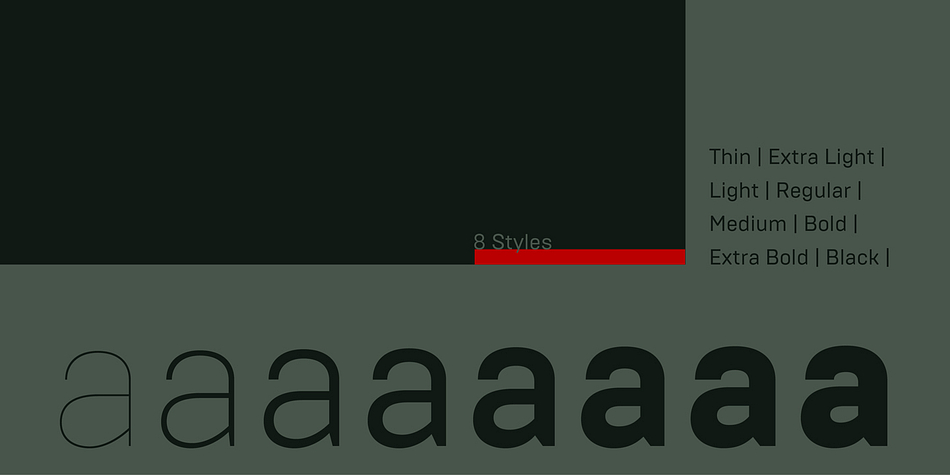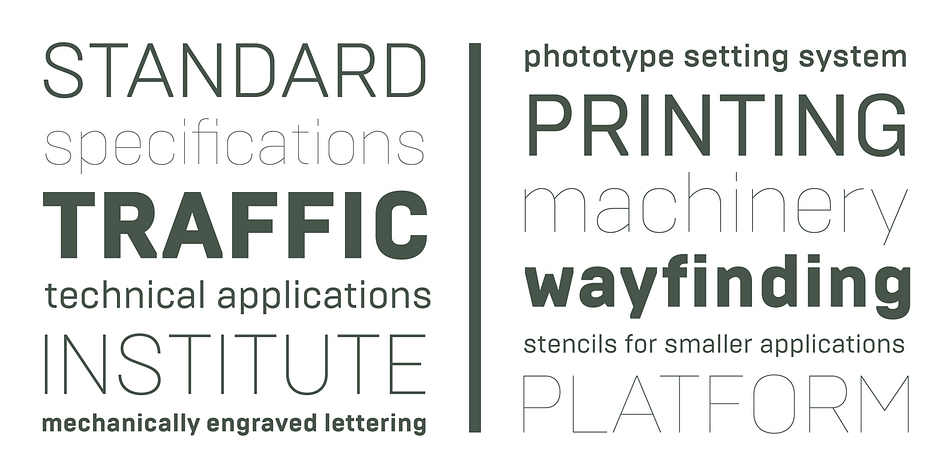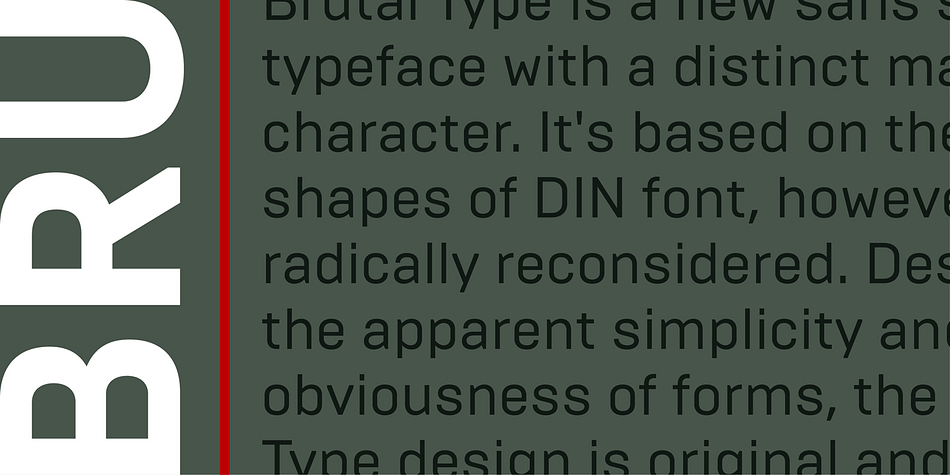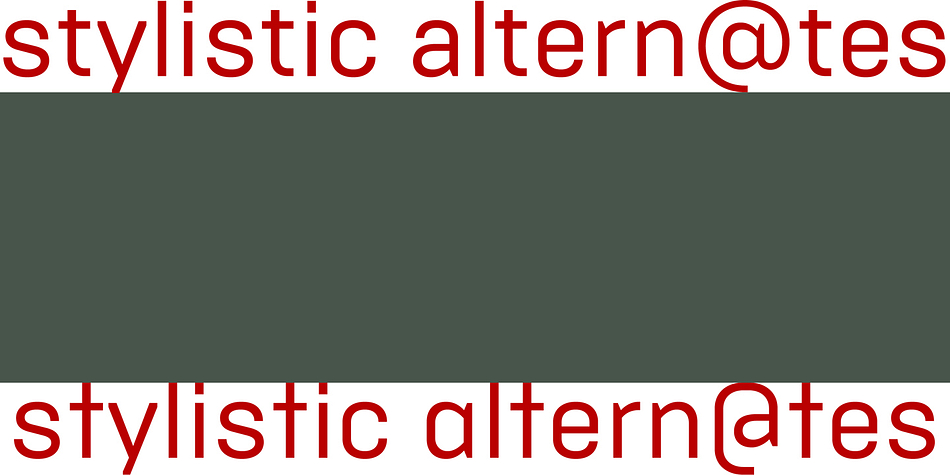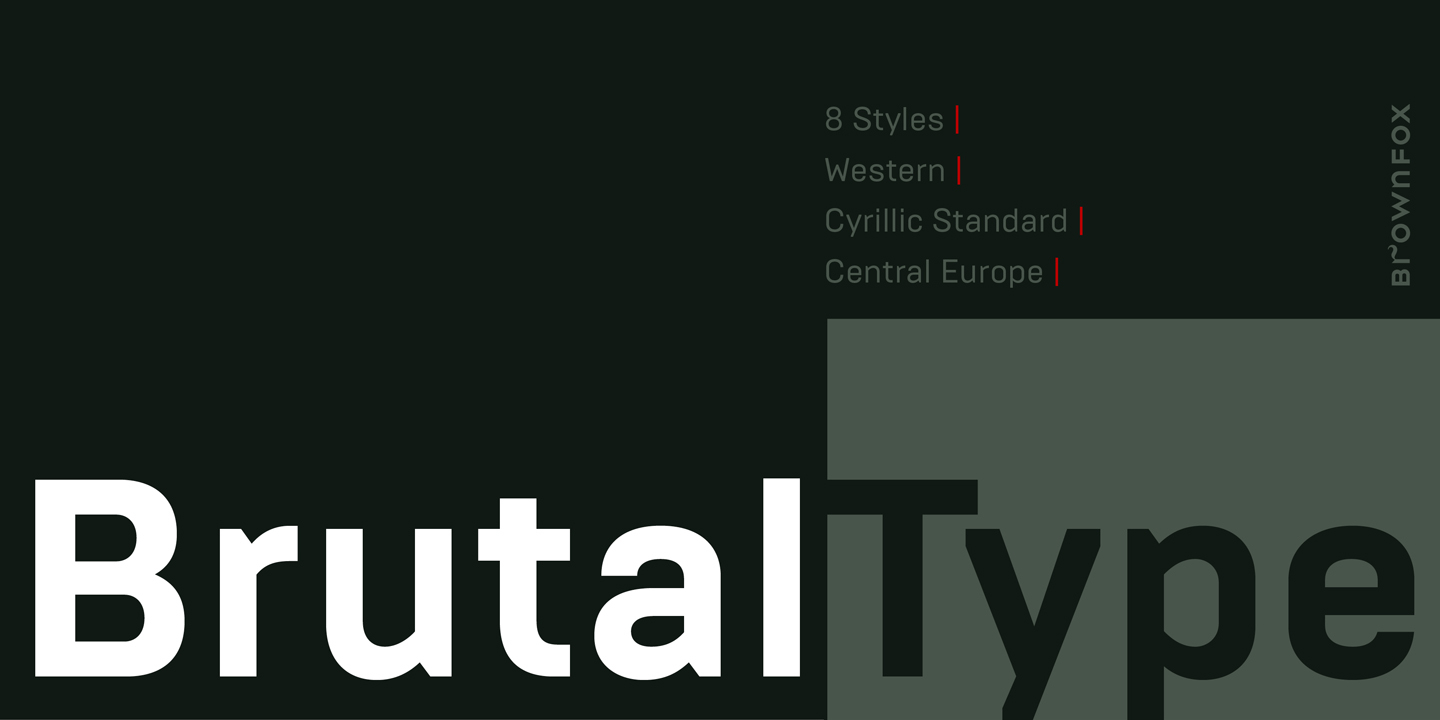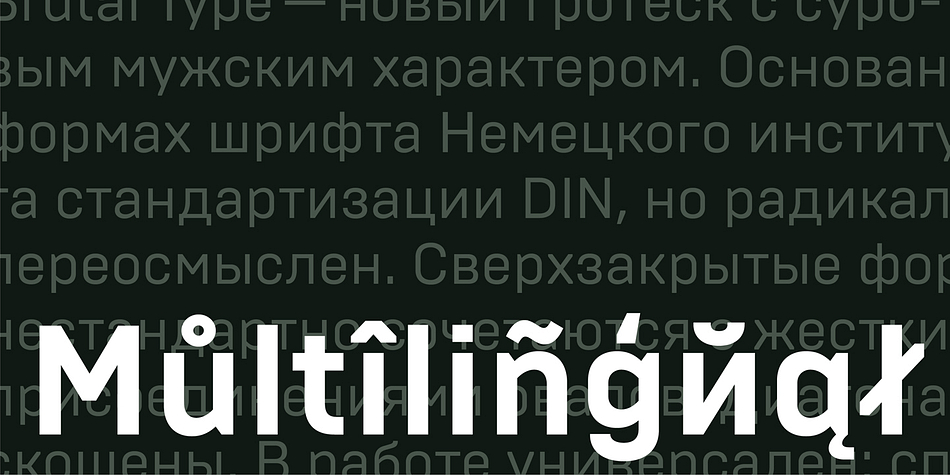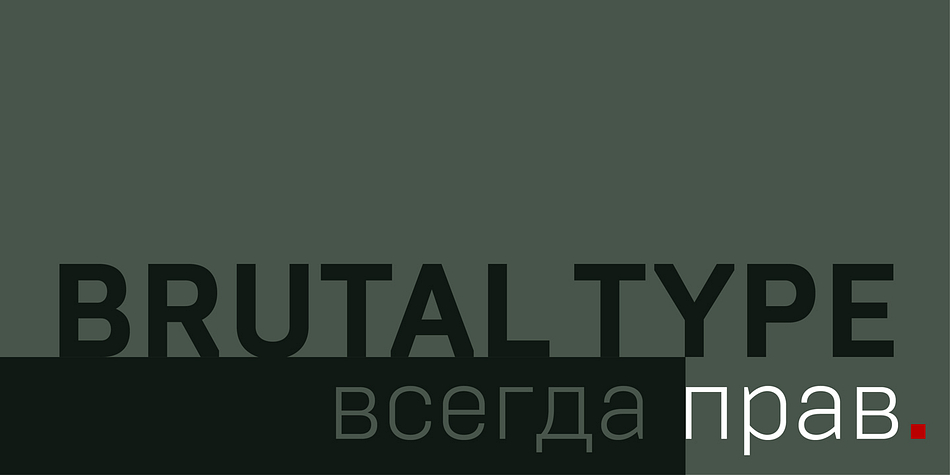
Brutal Type is a sans serif font family. This typeface has eight styles and was published by Brownfox.
Brutal Type — is a new Sans Serif typeface with a distinct manly character. It’s based on the shapes of DIN font, however radically reconsidered. Despite the apparent simplicity and obviousness of forms, the Brutal Type design is original and fresh. This font is universal and familiar to all, emotional and catchy at the same time. Designed by Gayaneh Bagdasaryan and Dmitry Rastvortsev.